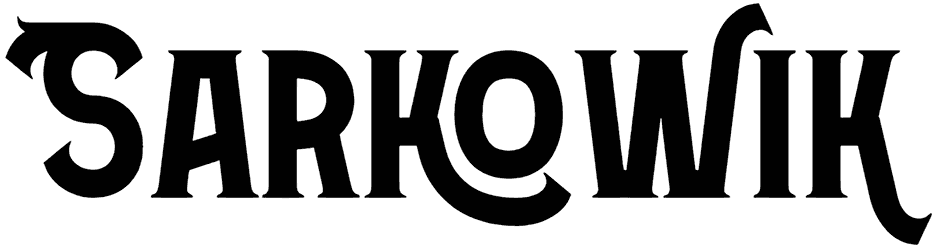
Sarkowik Font
Sarkowik is an all-caps retro font that, due to its stylish design, feels elegant and classic. It comes with uniformly straight characters that have good readability, so the visibility of your artwork, including posters, book covers, logos, wood engraving, and menus, would be ensured.
If establishing a sense of classic, vintage, dynamic, and drama is what you really want, this fancy font will be ideal for you.